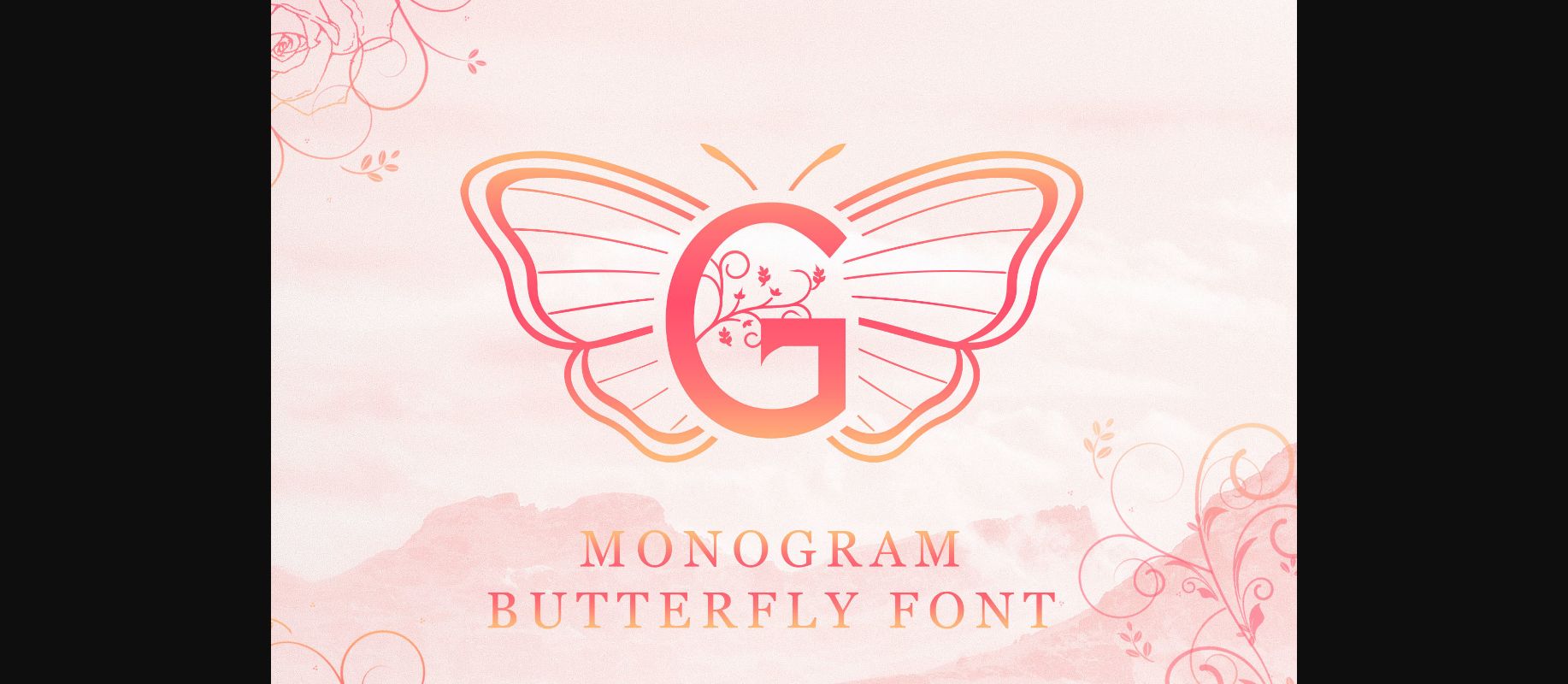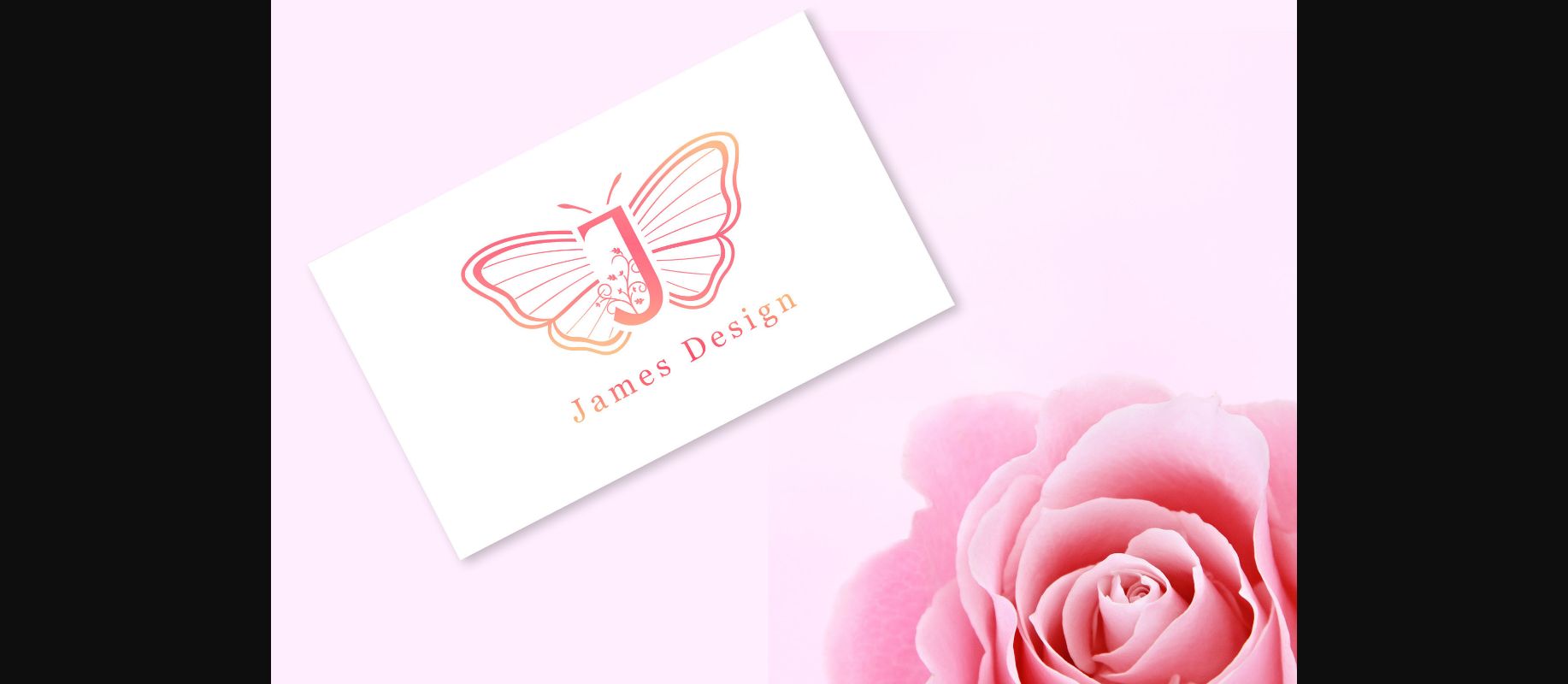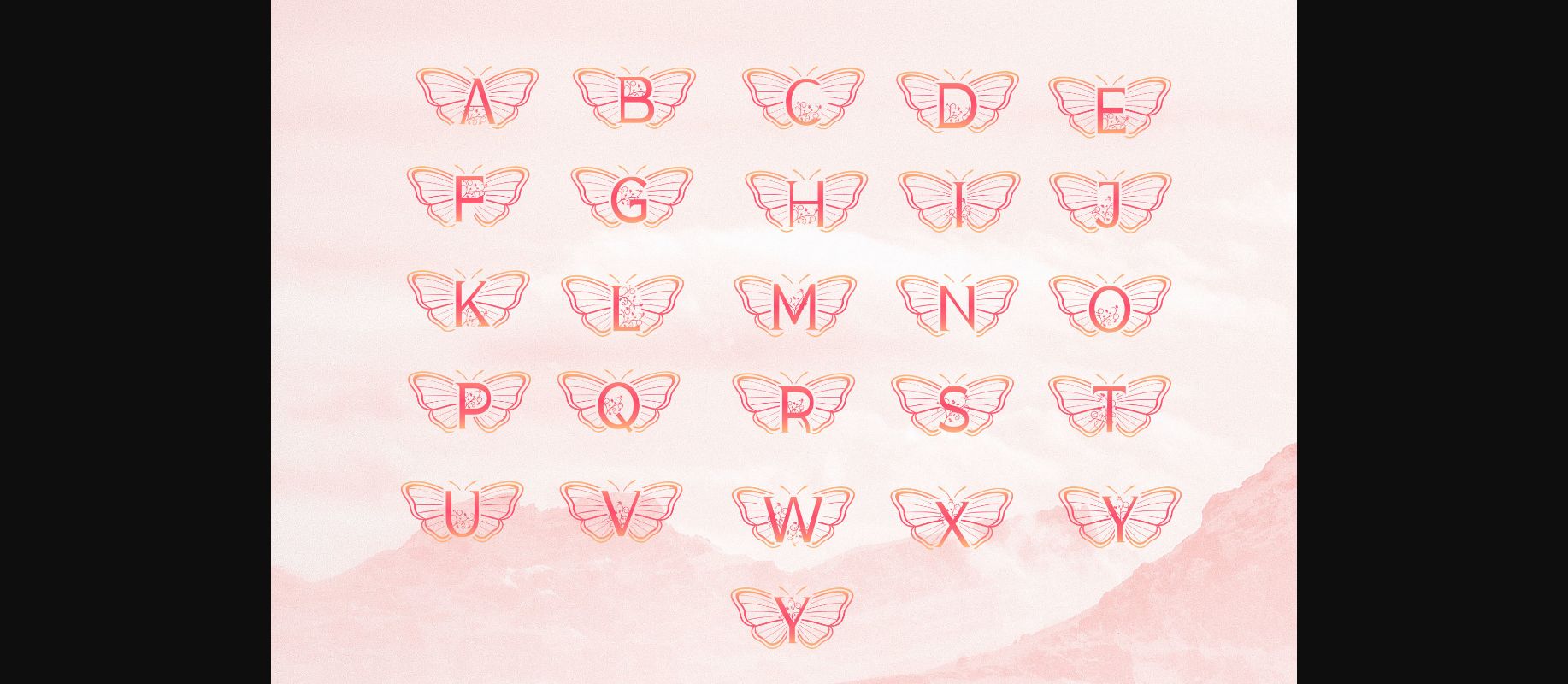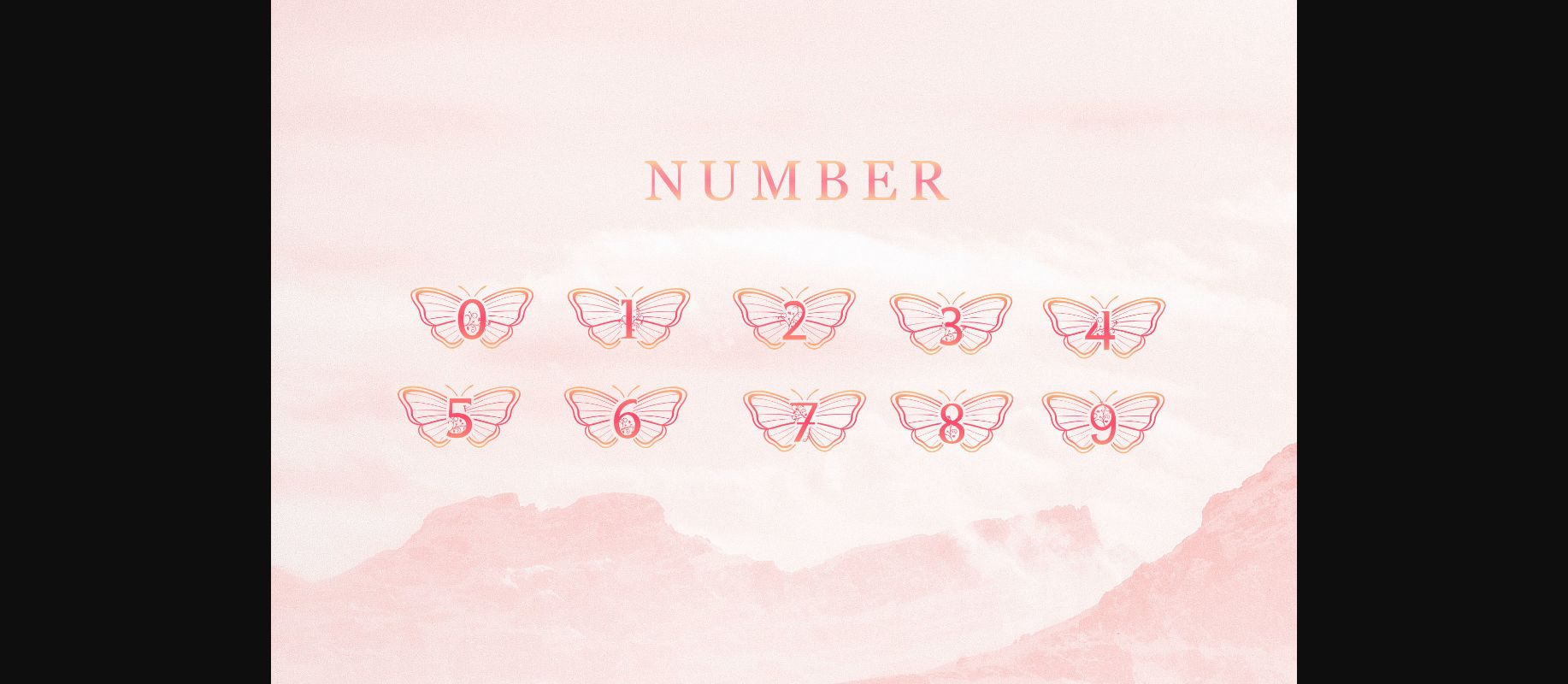
Butterfly Monogram Font
About Butterfly Monogram Font
Butterfly Monogram is a delicate and beautiful decorative font. Fall in love with its incredibly versatile style and use it to create gorgeous wedding invitations, beautiful stationary art, eye-catching social media posts, and much more!